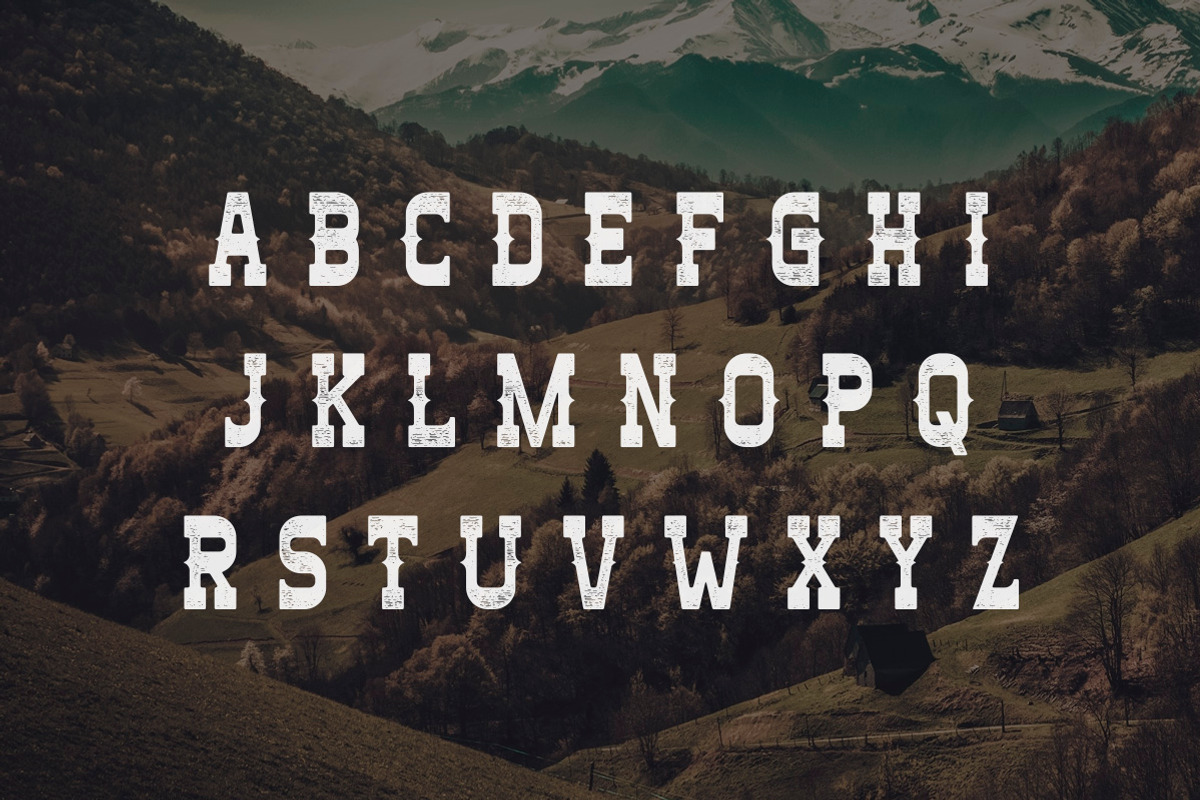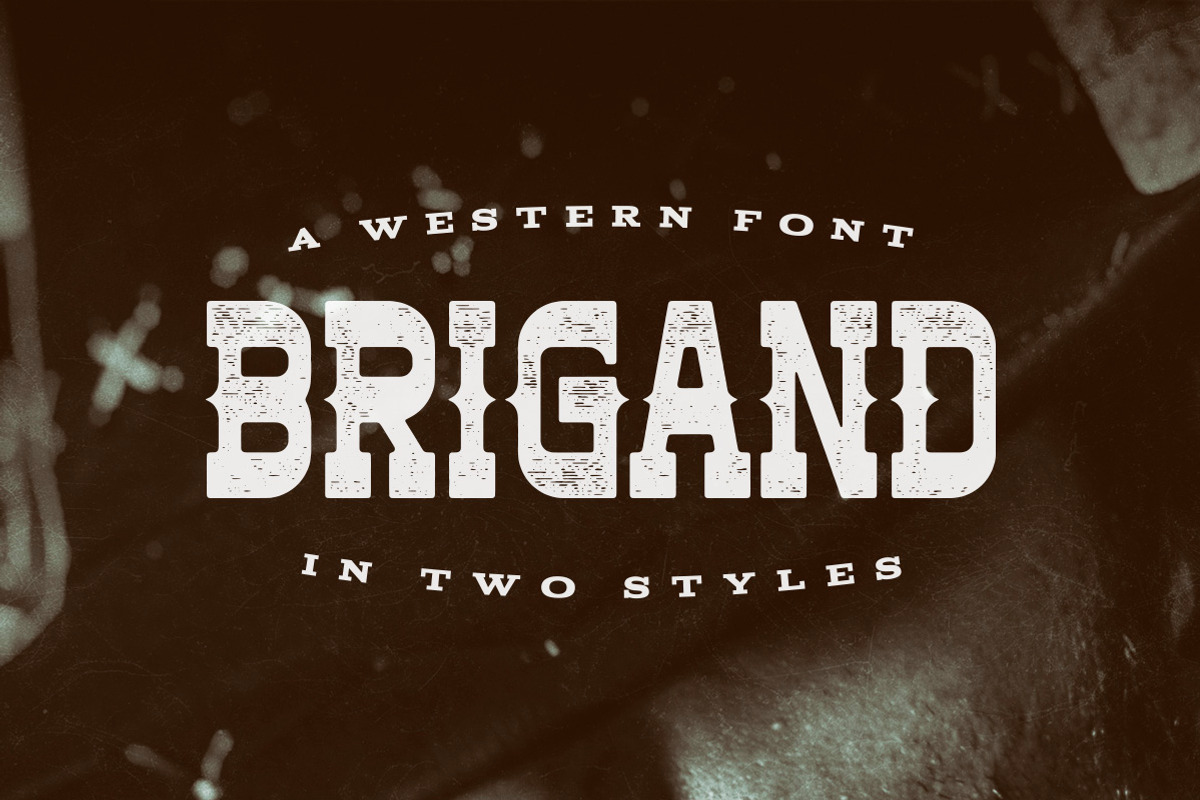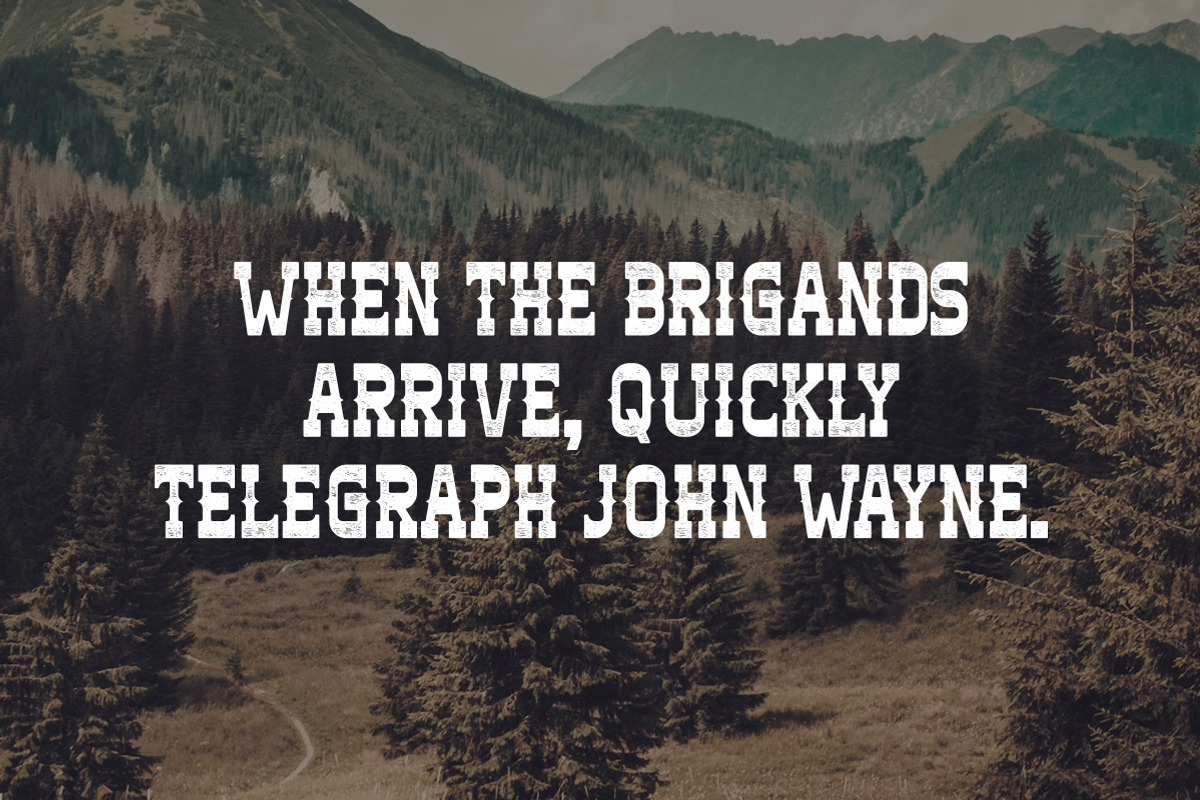
Brigand Typeface
Brigand Typeface by Tugcu Design Co. is a font selected for branding, posters, packaging, typography.
- It includes English uppercase letters, numbers and basic punctuation.
- Brigand Regular
- Brigand Rough
Why Brigand Typeface is worth a look
Brigand Typeface by Tugcu Design Co. fits naturally into Branding, posters, packaging, typography.